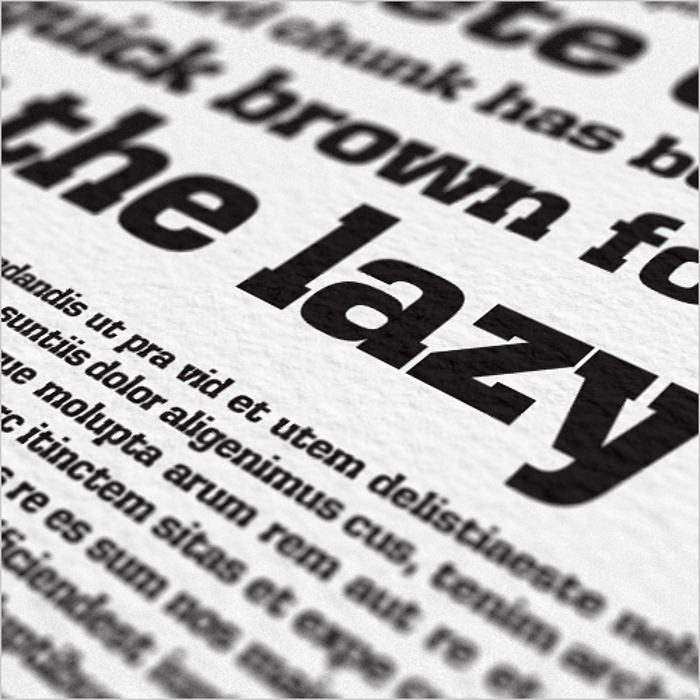
SD Eurostile Elite Font
One of the most popular typefaces of all time originally designed by Aldo Novarese in 1962 gets a bit of an upgrade in the form of some slabs!
SD Eurostile Elite could also be considered Eurostile Slab Bold, but it’s actually much more than that, check it out! Designed as a display font for a magazine masthead, SD Eurostile Elite has a strong design which brings a sense of honor and dependability to any layout.